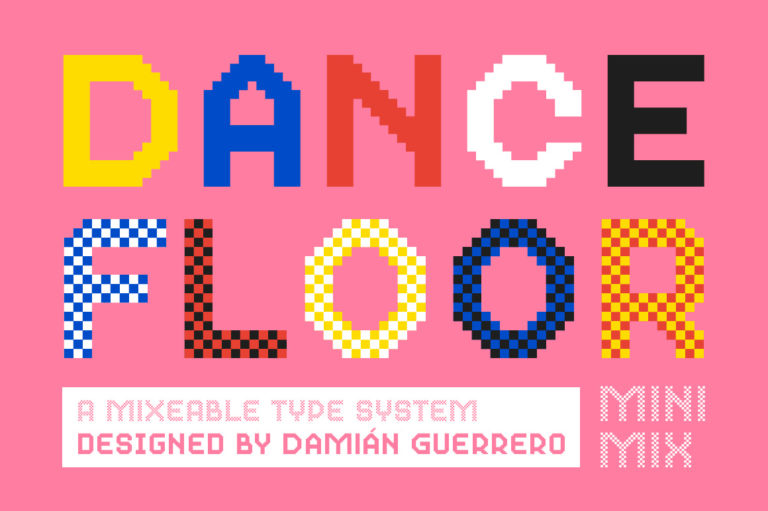
Dance Floor Mini Mix Font
Dance Floor Mini Mix Font is perfect for nightclub branding, DJ event posters, electronic music album covers, dance studio signage, party invitation designs, music festival graphics, club merchandise, radio station logos, concert promotional materials, and energetic social media campaigns.
What makes Dance Floor Mini Mix Font so exciting is its incredible ability to pulse with infectious rhythm and capture the electrifying energy of the dance floor through dynamic typography that moves to its own beat. This vibrant typeface embodies the spirit of late-night celebrations and musical euphoria with letterforms that seem to bounce and groove with electronic beats. The font's energetic design elements perfectly capture the essence of nightlife culture and dance music excitement, making it an essential choice for brands and events that create unforgettable party experiences and connect with audiences who live for the rhythm.
Dance Floor Mini Mix Font comes in multiple font families including Regular, Bold, Light, Neon, Glow, Condensed, Extended, and Beat variations. Each family member maintains the core dance energy characteristics while offering different intensity levels and stylistic approaches to suit various nightlife design requirements.
The rhythmic design elements in Dance Floor Mini Mix Font make it particularly effective for music industry applications where capturing audience excitement is crucial for success. Its dynamic presence works exceptionally well in both digital applications and large-scale event graphics, where the energetic letterforms can create the full party atmosphere that dance music fans crave.
Entertainment professionals recognize how Dance Floor Mini Mix Font transforms ordinary promotional text into irresistible invitations to unforgettable dance experiences. The typeface's vibrant character set includes special music symbols and beat-inspired elements that enhance the overall party atmosphere of any campaign.
For creative professionals working in nightlife entertainment, electronic music, and party event industries, Dance Floor Mini Mix Font serves as the ultimate weapon for creating memorable brand experiences that capture the infectious energy and musical passion that keeps the dance floor moving all night long.